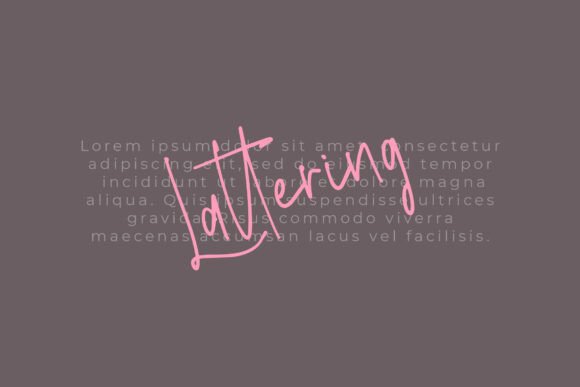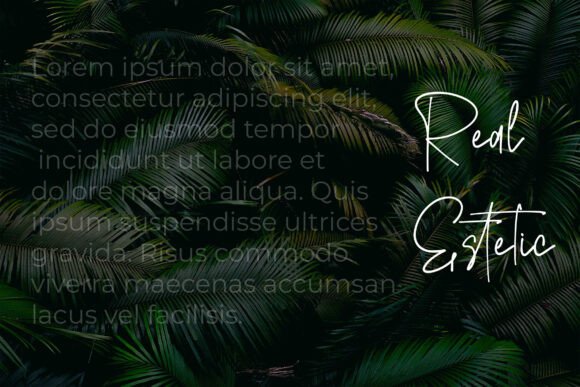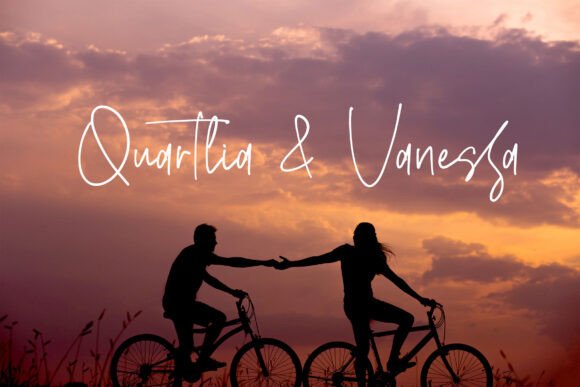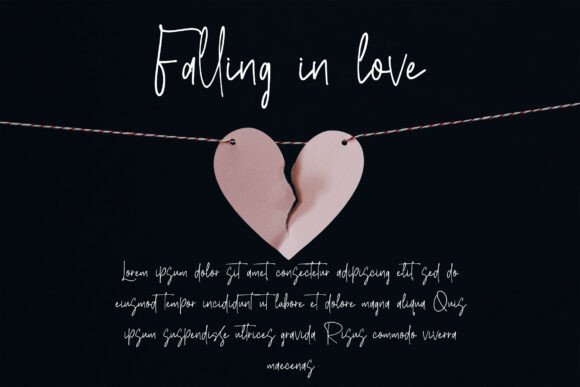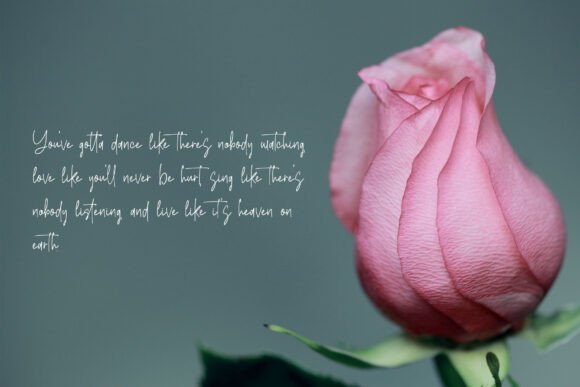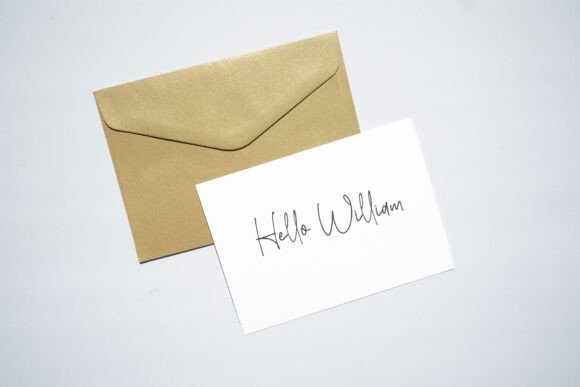
Introducing Conellista Font: Elevate Your Designs with Elegance and Sophistication
In the world of typography, fonts play a crucial role in conveying the tone and personality of a design. For those seeking to add a touch of elegance and sophistication to their creative projects, Conellista Font is an exceptional choice. This beautiful script font boasts a refined signature style that is sure to elevate your visual presentations.
What is Conellista Font?
Conellista is an elegant script font characterized by its unique character shapes and sophisticated signature style. Its flowing letterforms are designed to add a refined and professional touch to any design, making it perfect for a variety of applications. Whether you’re a designer, craftsperson, or simply someone who appreciates beautiful typography, Conellista Font is an excellent addition to your font collection.
Key Features of Conellista Font
- Elegant Script Style: Conellista features a beautiful, flowing script style that adds a touch of sophistication to any design.
- Unique Character Shapes: Each character in Conellista has a unique shape, ensuring that your designs stand out from the crowd.
- Refined and Professional: The font’s refined and professional appearance makes it perfect for logos, branding, and other high-end applications.
- Versatile: Conellista is suitable for a wide range of creative projects, including wedding invitations, business cards, and more.
Conellista Font is an incredibly versatile font that can be used in a variety of contexts. Here are some of the most popular applications:
- Logos and Branding: Conellista’s elegant script style and unique character shapes make it an excellent choice for logos and branding materials.
- Wedding Invitations: Add a touch of sophistication and romance to your wedding invitations with Conellista Font.
- Business Cards: Stand out from the competition with Conellista’s refined and professional appearance.
- Creative Projects: Whether you’re working on a DIY craft project or a large-scale design endeavor, Conellista Font is an excellent choice.
Why Choose Conellista Font?
With so many fonts available, why choose Conellista? Here are just a few reasons:
- Unique and Memorable: Conellista’s unique character shapes ensure that your designs will be remembered.
- Elegant and Sophisticated: Conellista adds a touch of elegance and sophistication to any design.
- High-Quality: Conellista Font is a high-quality font designed with precision and attention to detail.
Tips for Using Conellista Font
To get the most out of Conellista Font, here are a few tips:
- Use it Sparingly: Conellista Font is best used sparingly, as its elegance and sophistication can be overwhelming in large quantities.
- Pair it with Other Fonts: Conellista pairs well with a variety of other fonts, so don’t be afraid to experiment.
- Adjust the Size and Color: Experiment with different sizes and colors to find the perfect combination for your design.
| Font Name | Conellista Font |
Conellista Font is an exceptional choice for anyone seeking to add a touch of elegance and sophistication to their designs. With its unique character shapes, refined and professional appearance, and versatility, Conellista is perfect for a wide range of creative projects. Whether you’re a designer, craftsperson, or simply someone who appreciates beautiful typography, Conellista Font is an excellent addition to your font collection.